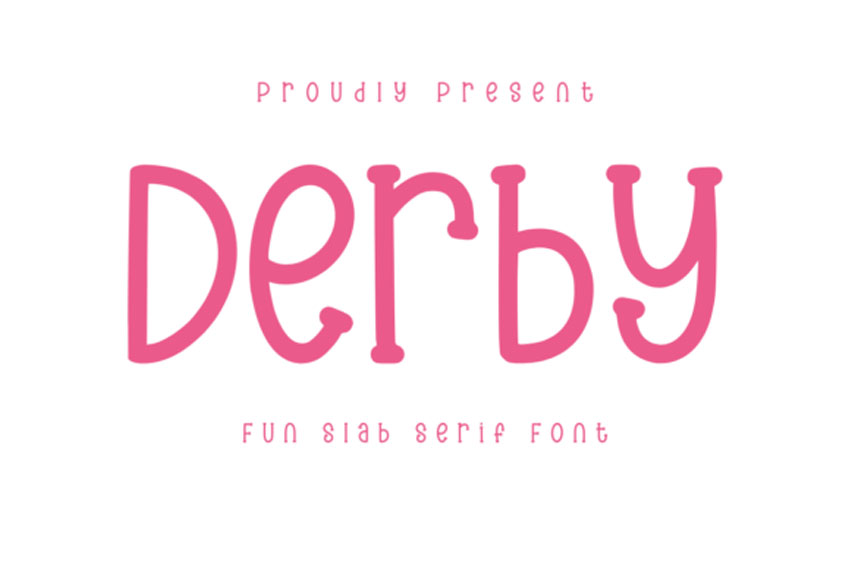
Derby Font
Derby Font is a delightful slab-serif font, adds a touch of charm to any project with its playful and cute demeanor.
The rounded letterforms and friendly curves create a warm and inviting feel, making NAMA the perfect choice for designs seeking a whimsical and endearing aesthetic.